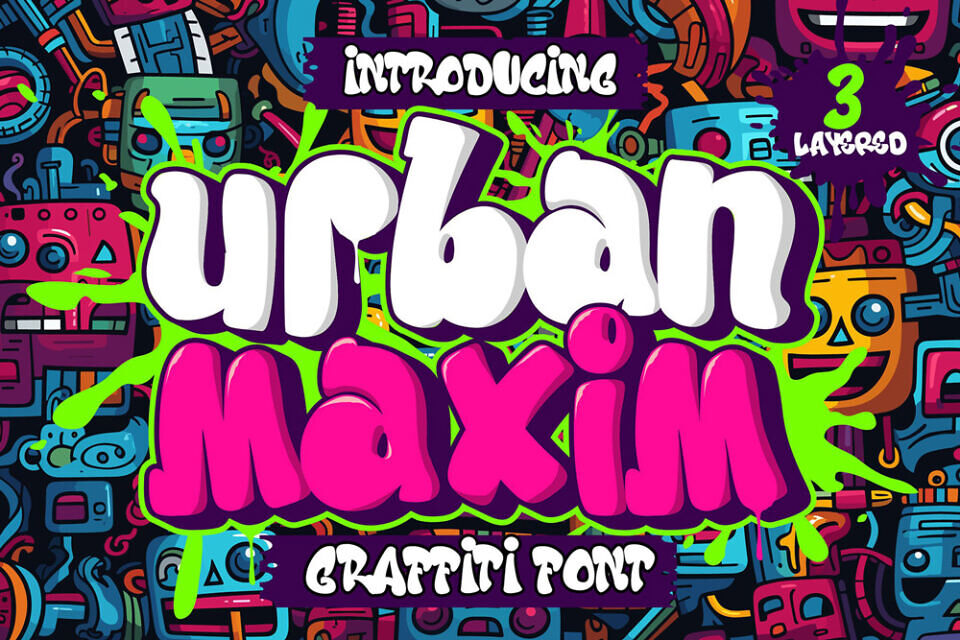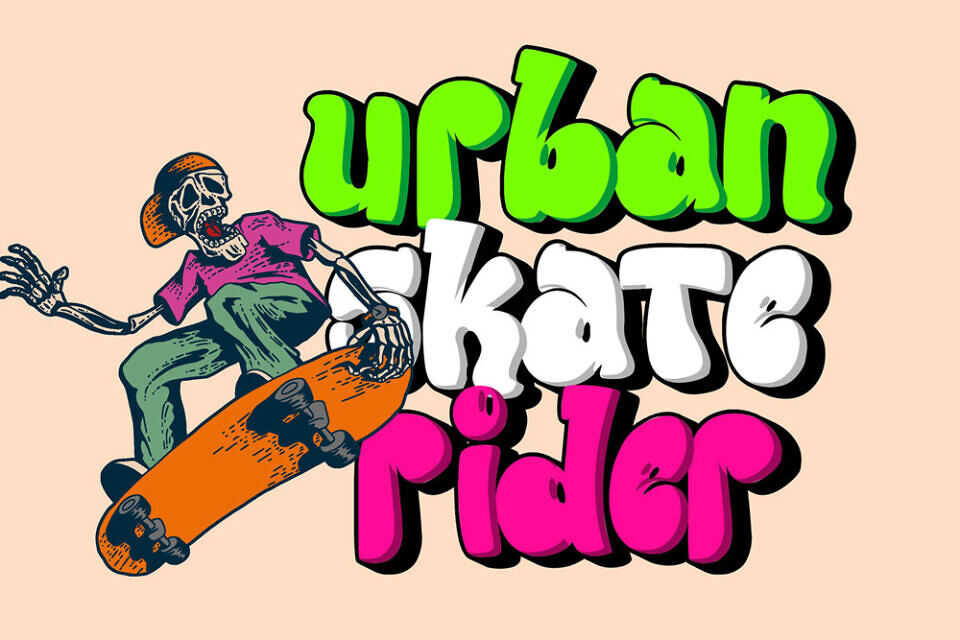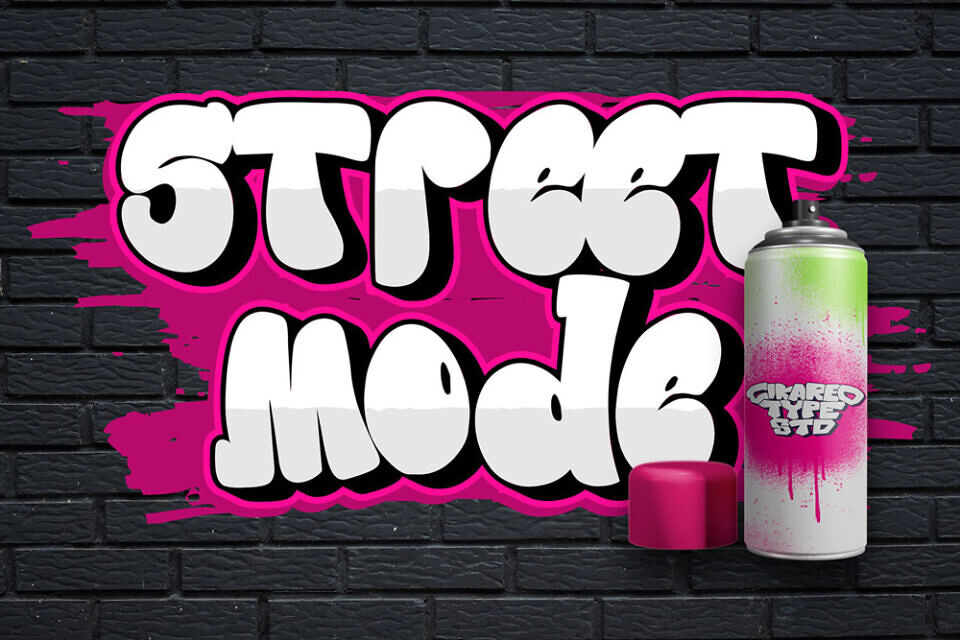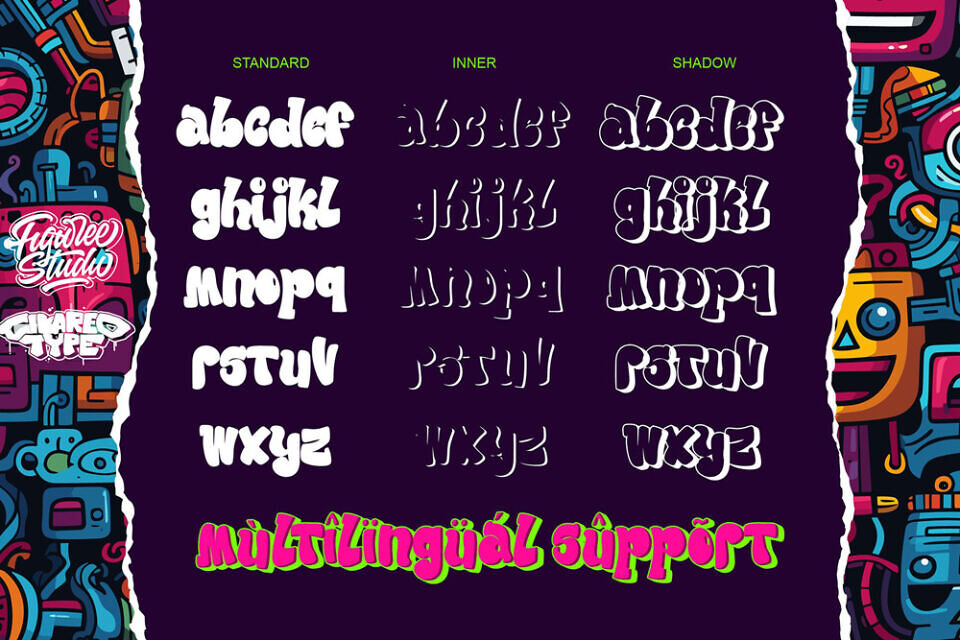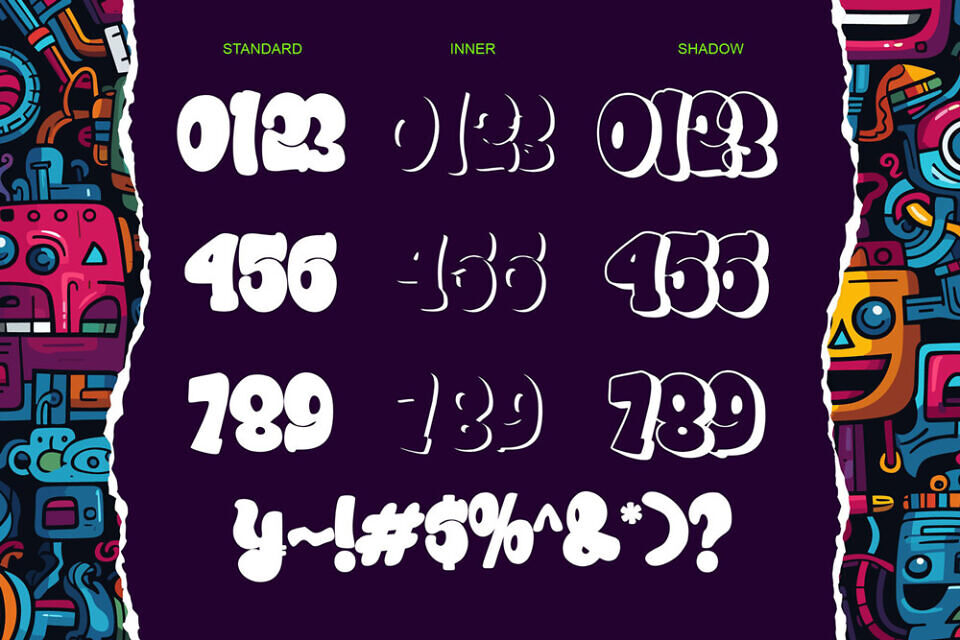
Urban Maxim is a bold and futuristic graffiti font crafted to deliver strong 3D depth and layered urban aesthetics. Designed for creators who demand impactful typography, this 3D graffiti font transforms simple text into visually powerful compositions. Whether you’re working on streetwear branding, poster design, or digital campaigns, Urban Maxim graffiti font provides a modern and dynamic visual identity.
This layered graffiti font is built with precision and creativity, allowing designers to easily create dimensional typography without complicated effects. With its structured design and strong presence, Urban Maxim stands out as a professional urban graffiti font for both commercial and creative use.